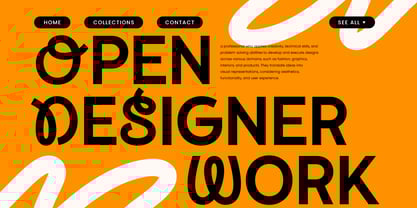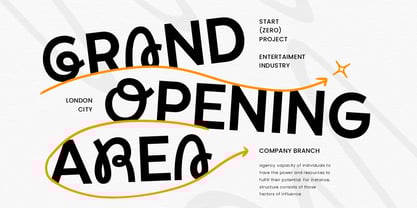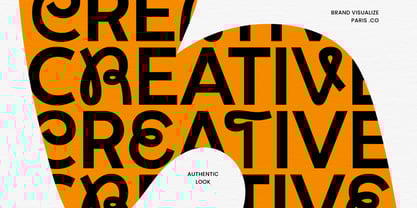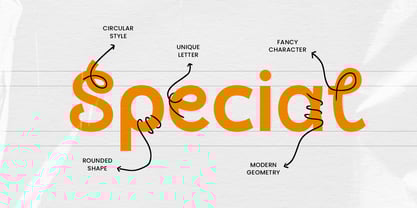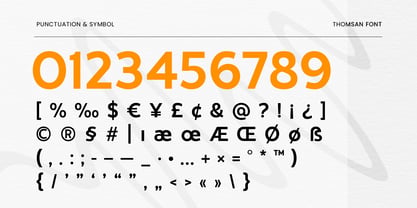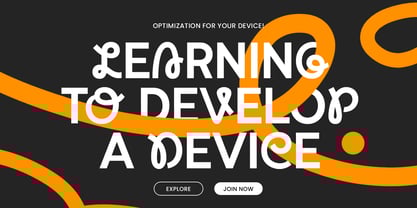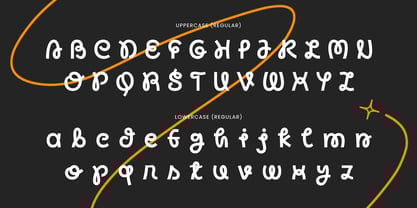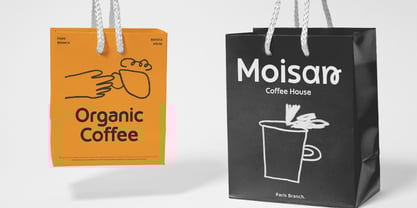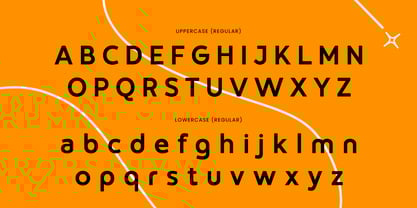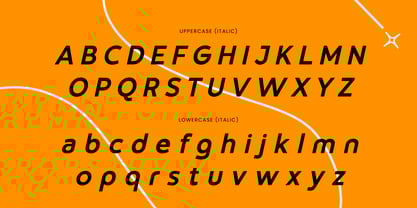
Thomsan
by Sensatype Studio
The Thomsan Font Family was designed by Zamroni Hamzah and published by Sensatype Studio. Thomsan contains 2 styles and family package options.
Thomsan - Unique Experimental Logo Font
Thomsan is a unique experimental font designed to break the mold of traditional logo design. Its distinct style combines experimental elements with modern aesthetics, making it perfect for creating memorable and impactful logos. Whether you're working on a new brand identity or a cutting-edge marketing campaign, Thomsan adds a touch of originality to any project.
Inspired by the desire to push design boundaries, Thomsan brings a fresh perspective to logo creation. Its experimental nature offers a range of alternate characters and creative possibilities, allowing designers to craft logos that stand out from the crowd. The font's versatility makes it suitable for a wide range of applications, from tech startups to creative agencies.
With its comprehensive set of features, Thomsan ensures that your designs are both functional and striking. It includes punctuation, numbers, and symbols, and supports multiple languages, making it a versatile choice for global projects. The opentype features further enhance its usability, making Thomsan a valuable asset for any designer looking to explore new creative horizons.
Thomsan Unique Experimental Logo Font Features:
• Alternates Characters Ready
• Sans Serif & Handwritten font
• Punctuation, Number, and Symbol
• Uppercase and Lowercase
• Multilingual Support
• Opentype Features